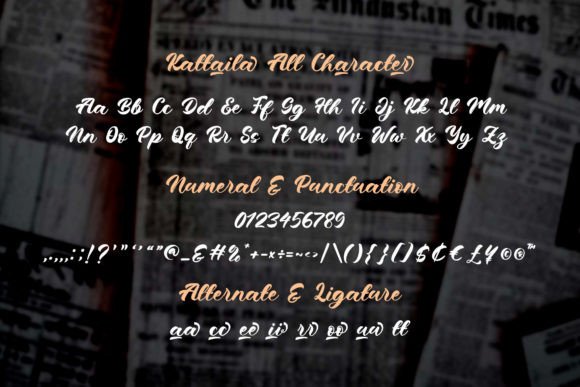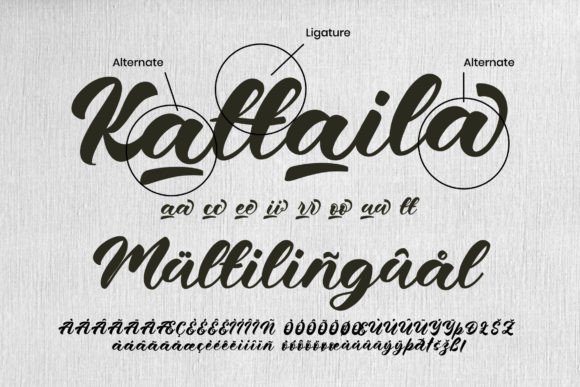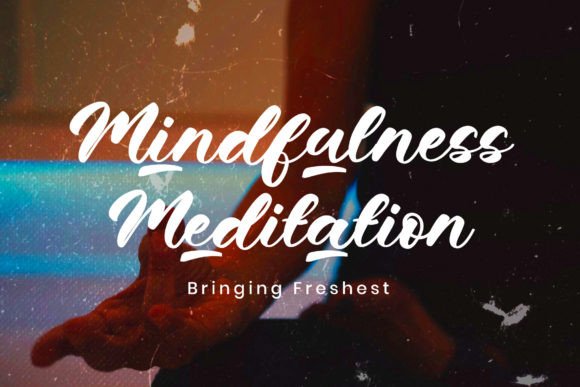
Introduction to Kattaila Font
Kattaila is a stylish handwritten script font that exudes elegance and charm with its flowing, graceful curves.
Perfect for invitations, logos, and branding, it adds a personal and sophisticated touch to any design The font’s delicate strokes bring warmth and creativity to your projects.
Kattaila Font offers exceptional quality and versatility, making it a valuable addition to your design toolkit. Whether you’re creating for personal projects or commercial use, Kattaila Font delivers professional results.